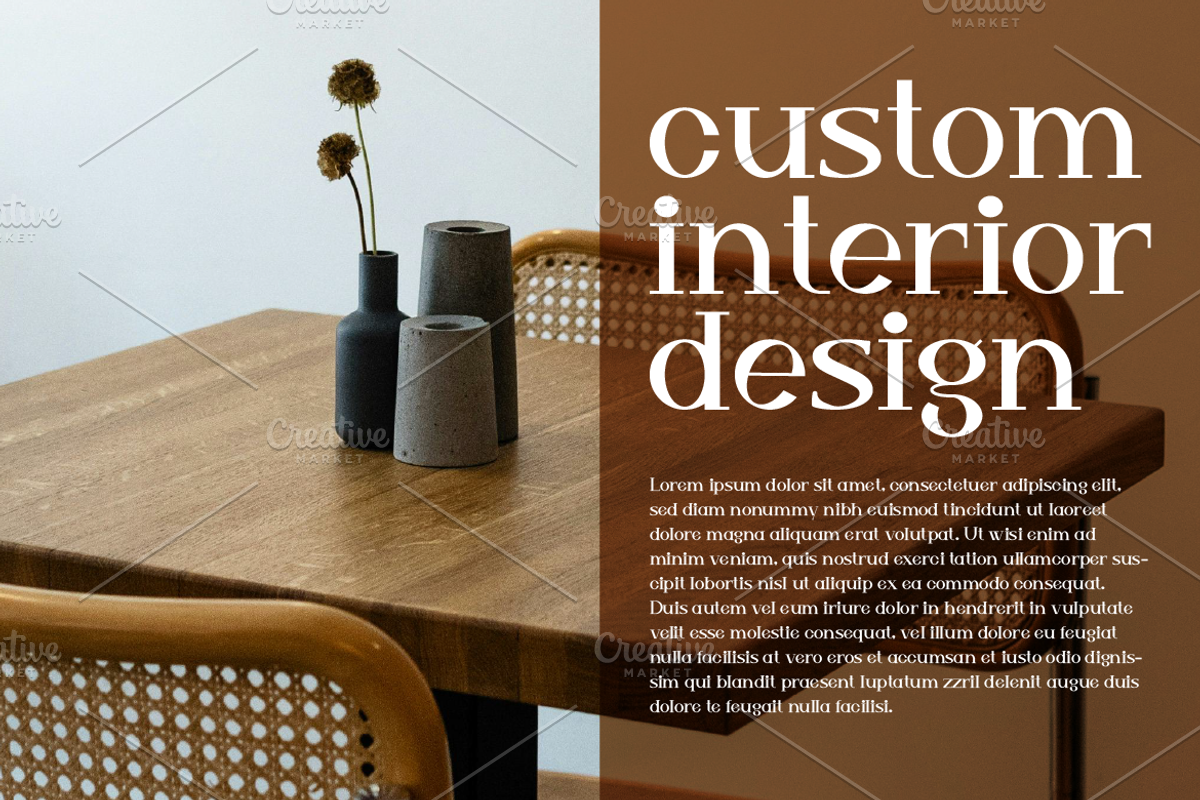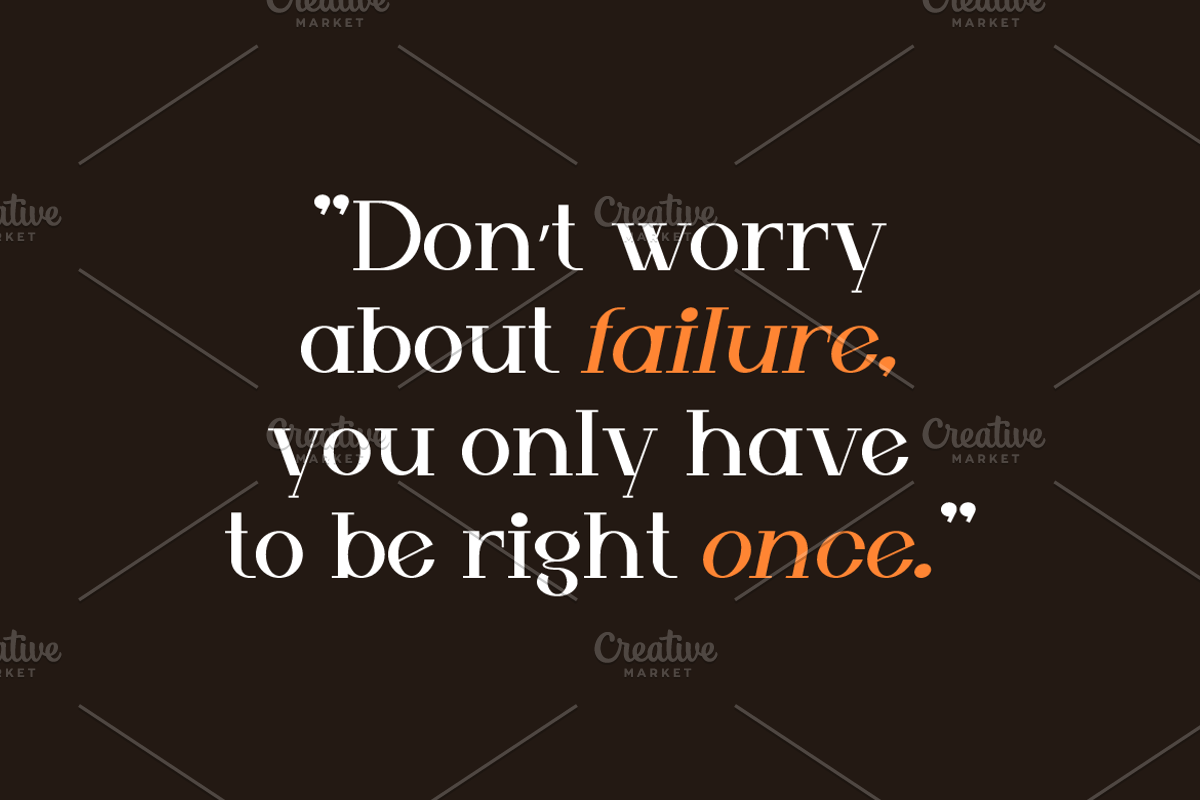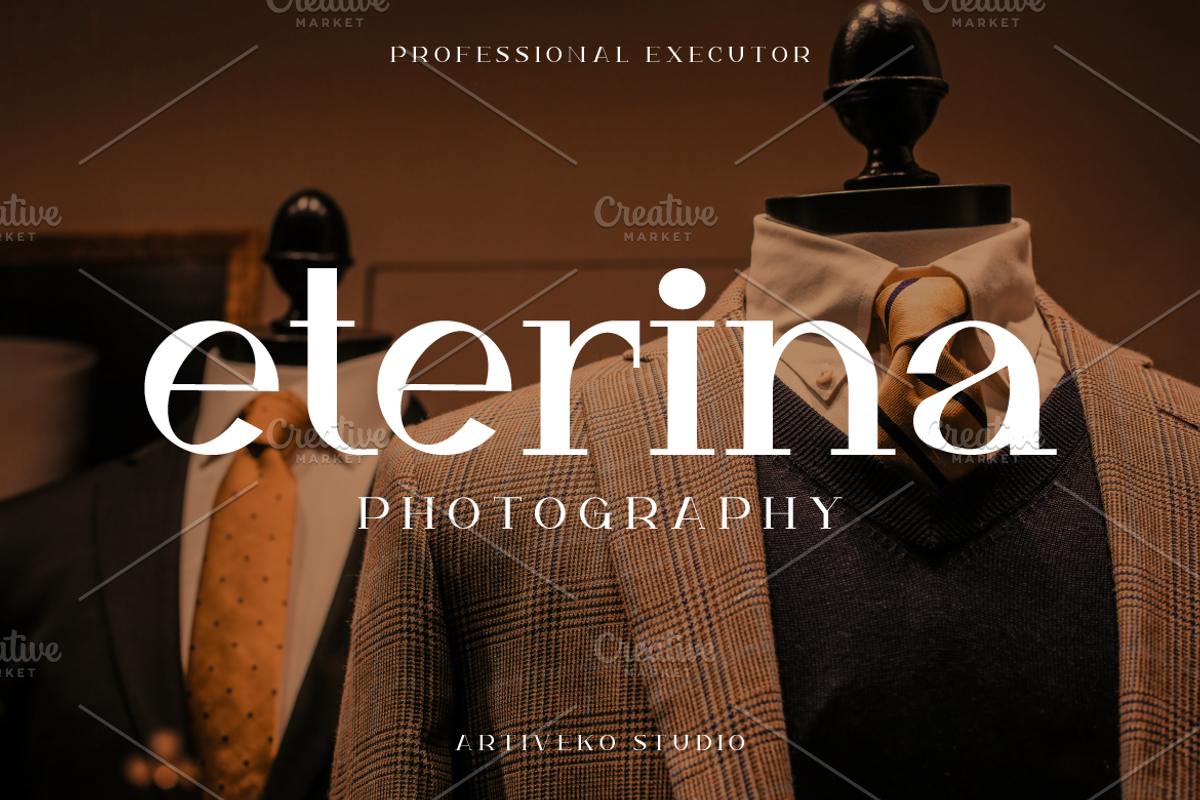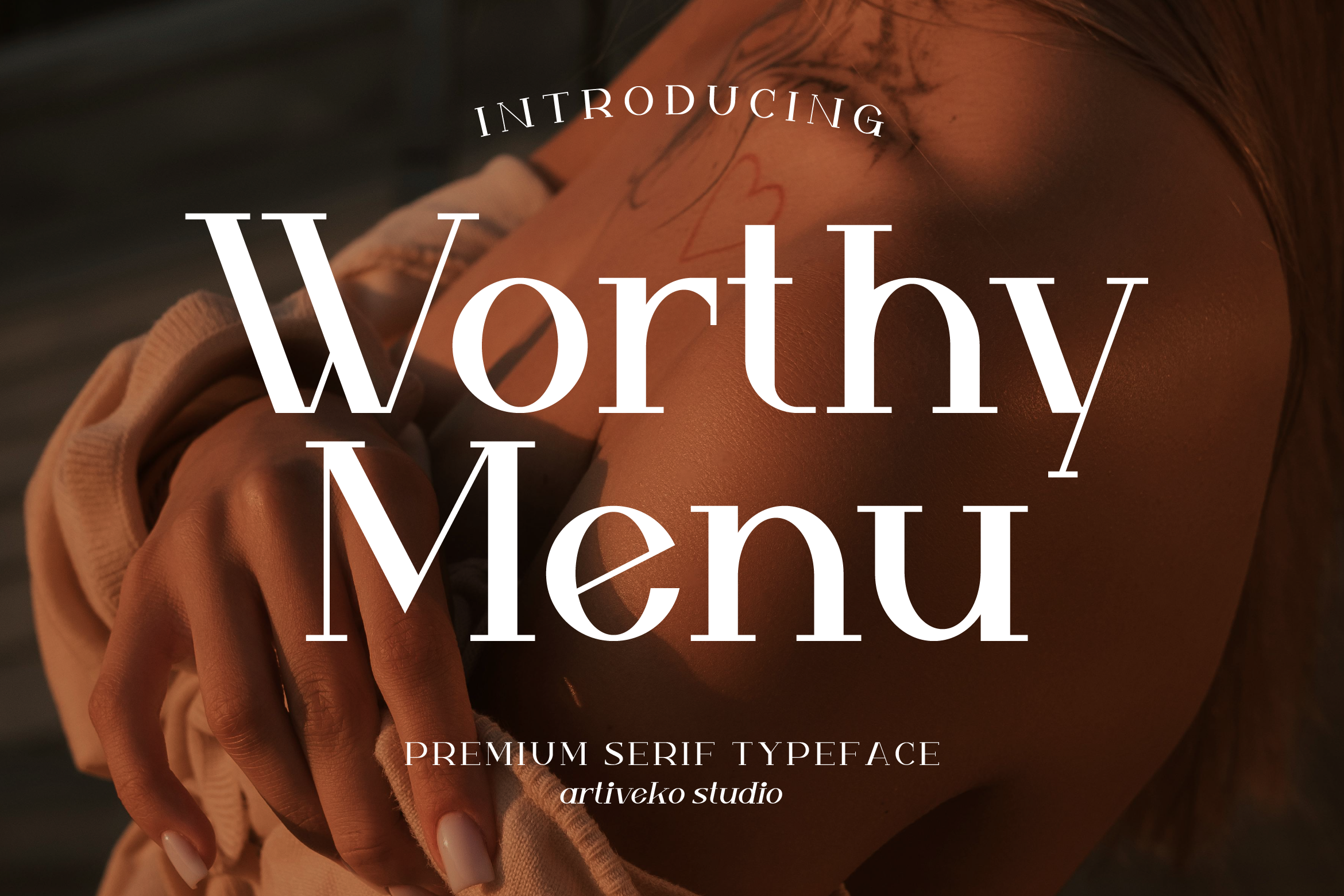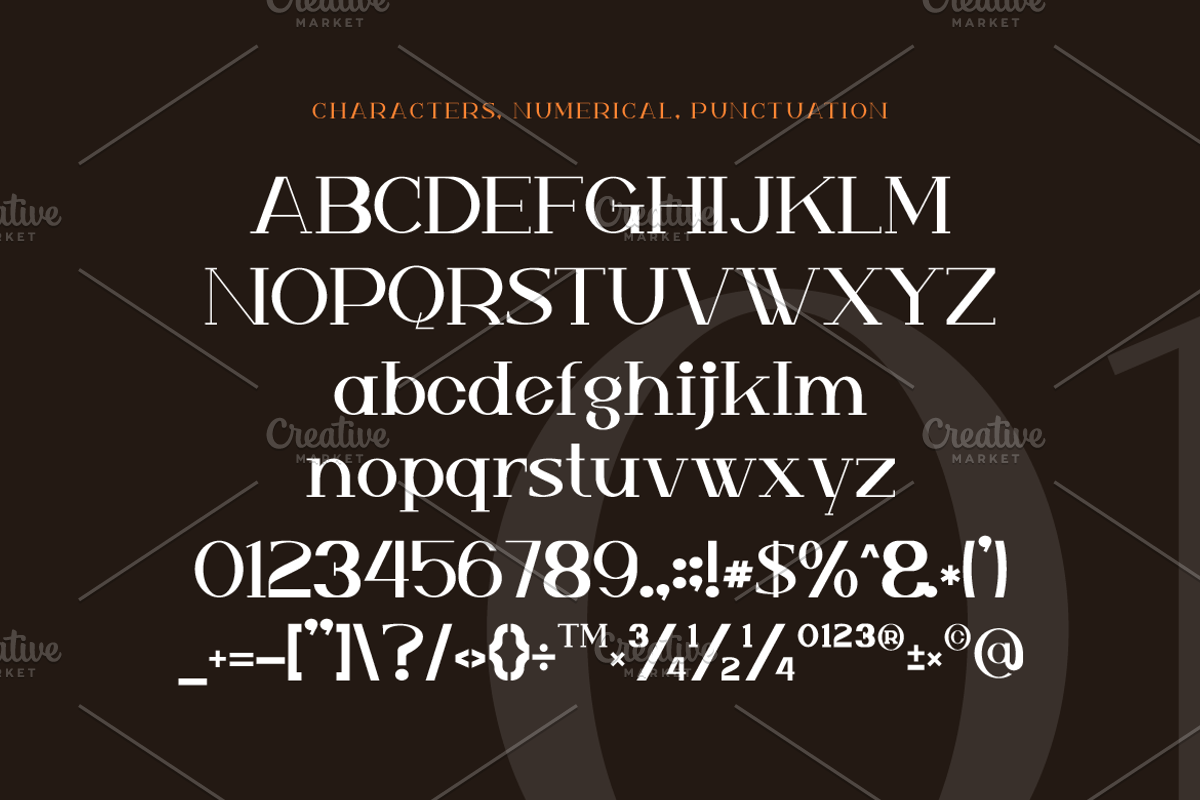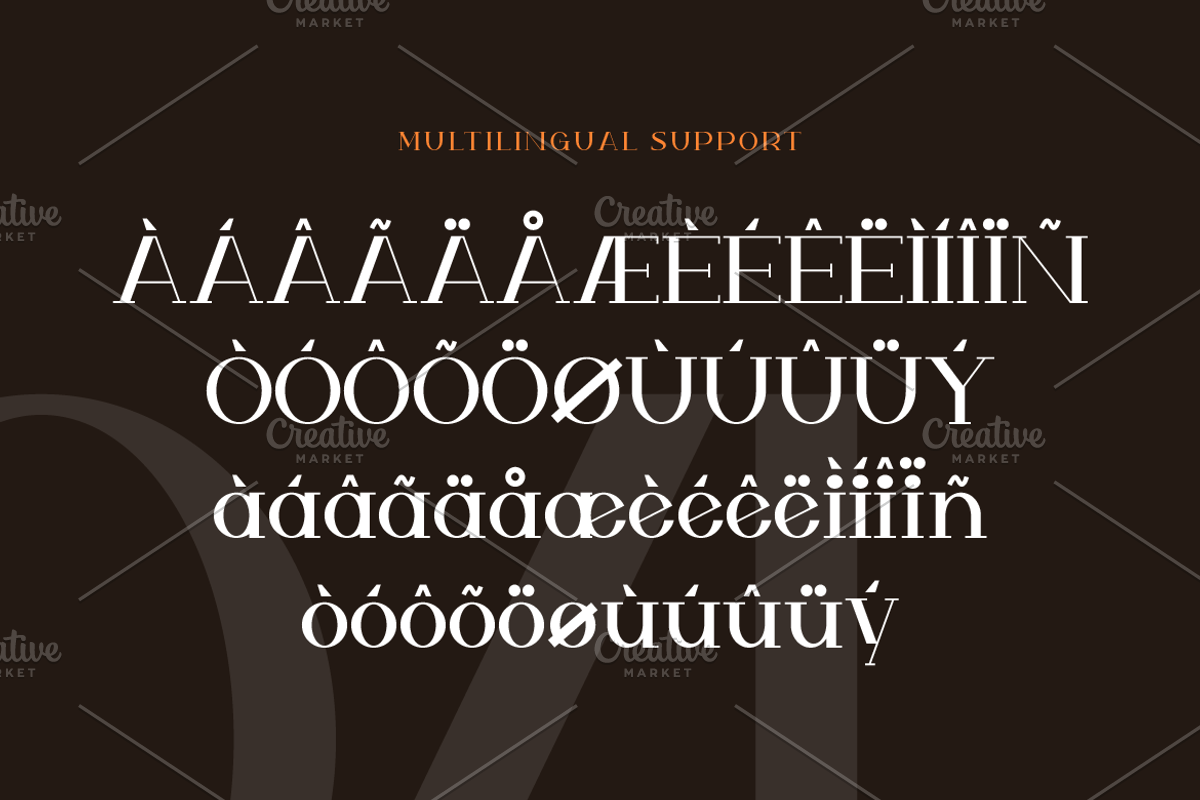
Worthy Menu Elegant Serif Font
Worthy Menu is an elegant serif font designed by Iwan Alwan, characterized by its refined, classic letterforms. With graceful serifs and well-balanced proportions, Worthy Menu adds a touch of sophistication to menus, invitations, branding, and editorial design. The font includes multilingual support, ligatures, and alternates, making it versatile for projects that require a timeless and polished look.